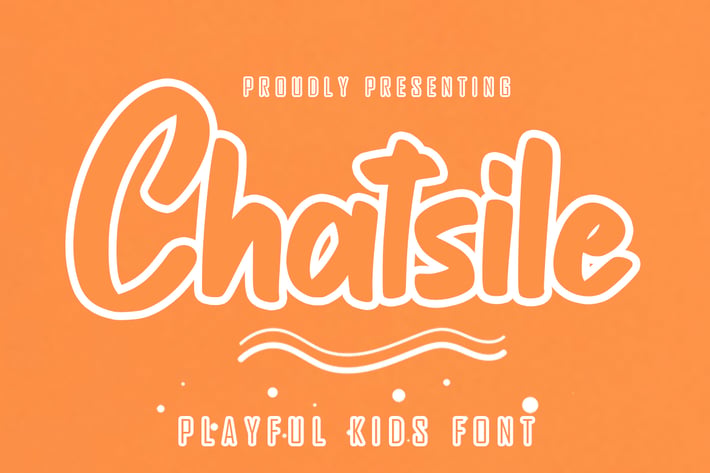
Chatsile - Playful Kids Font
Chatsile is a Playful Kids Font This font is perfect for children themed designs, especially when combined with bright colors.